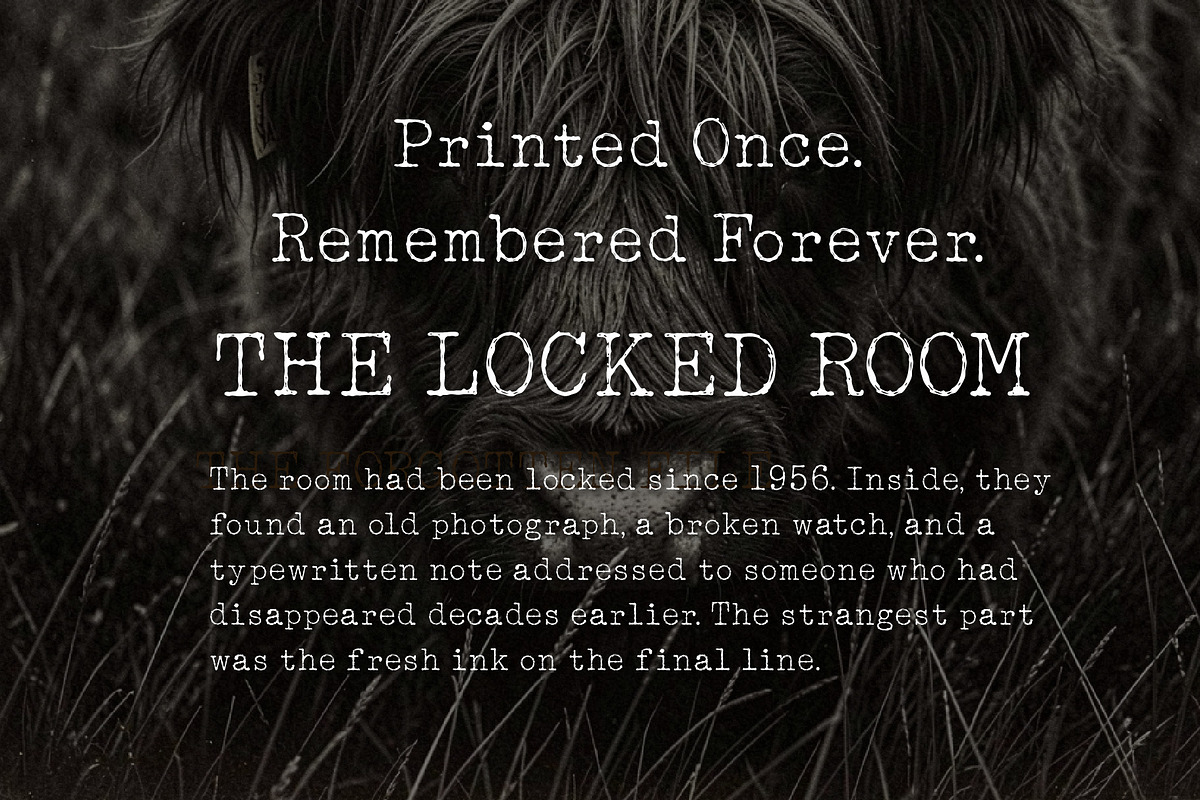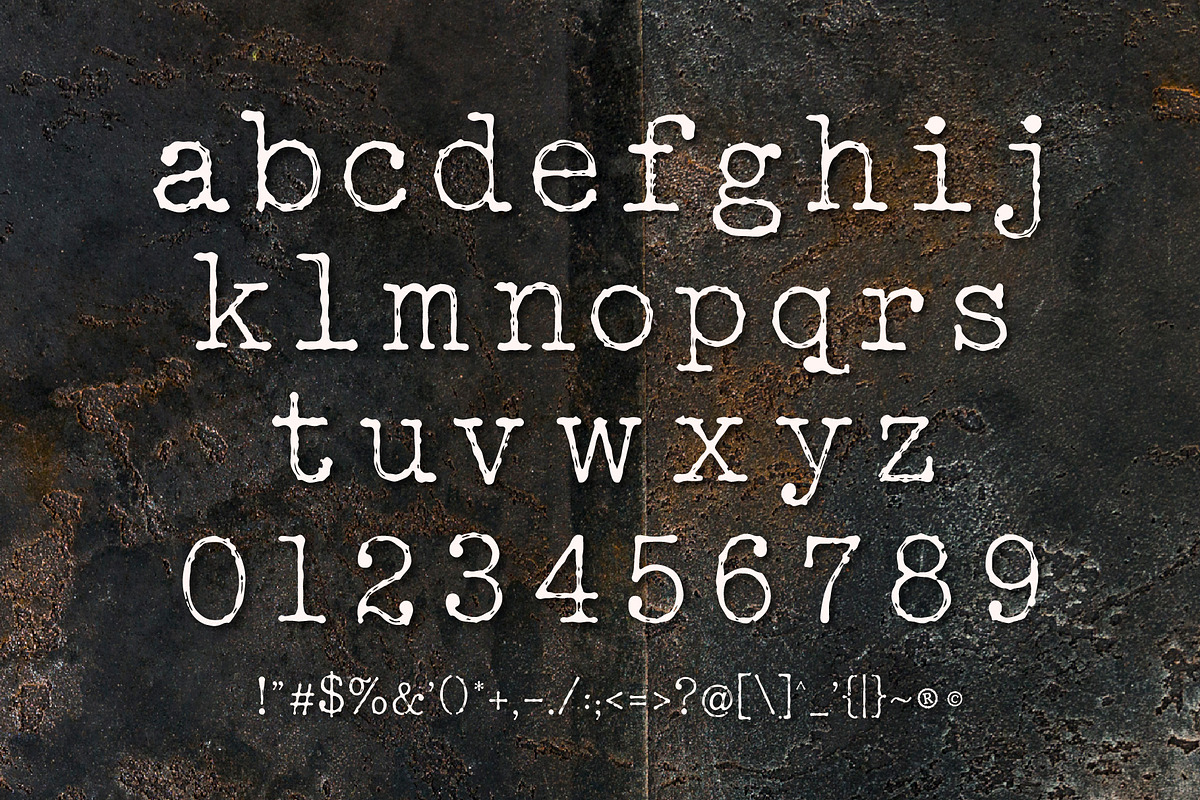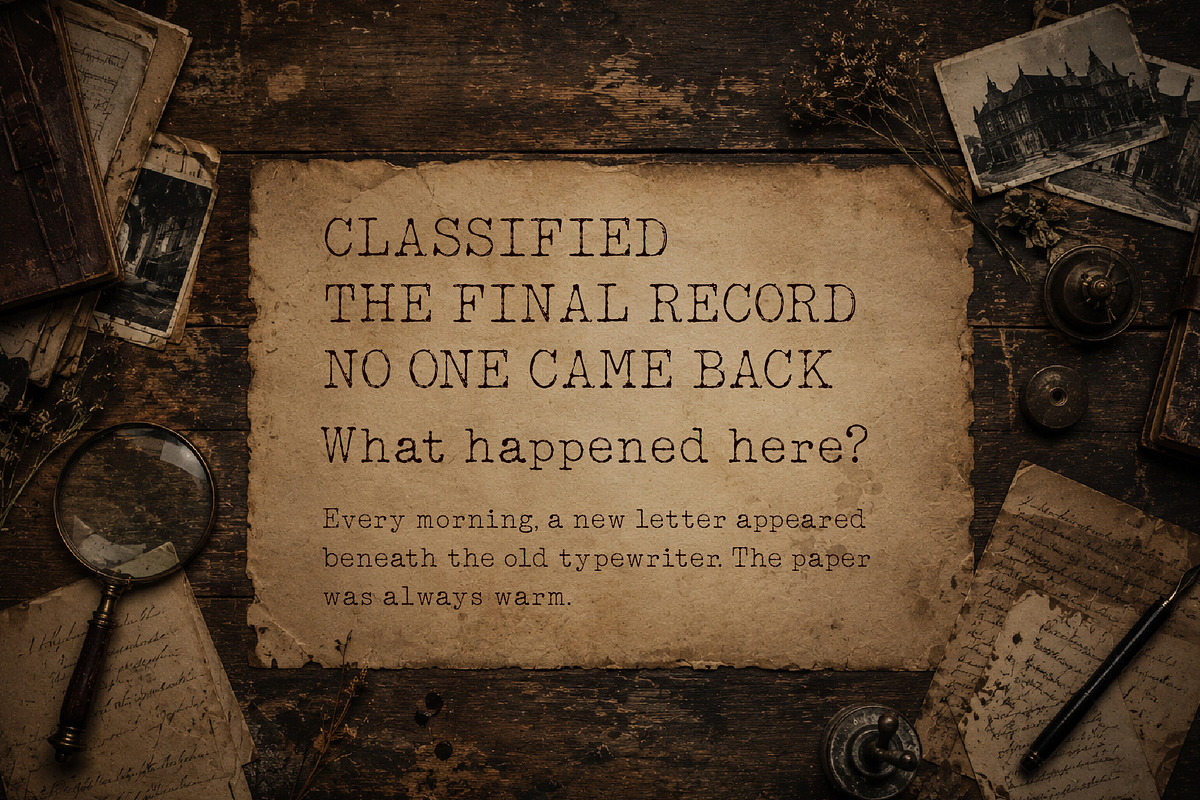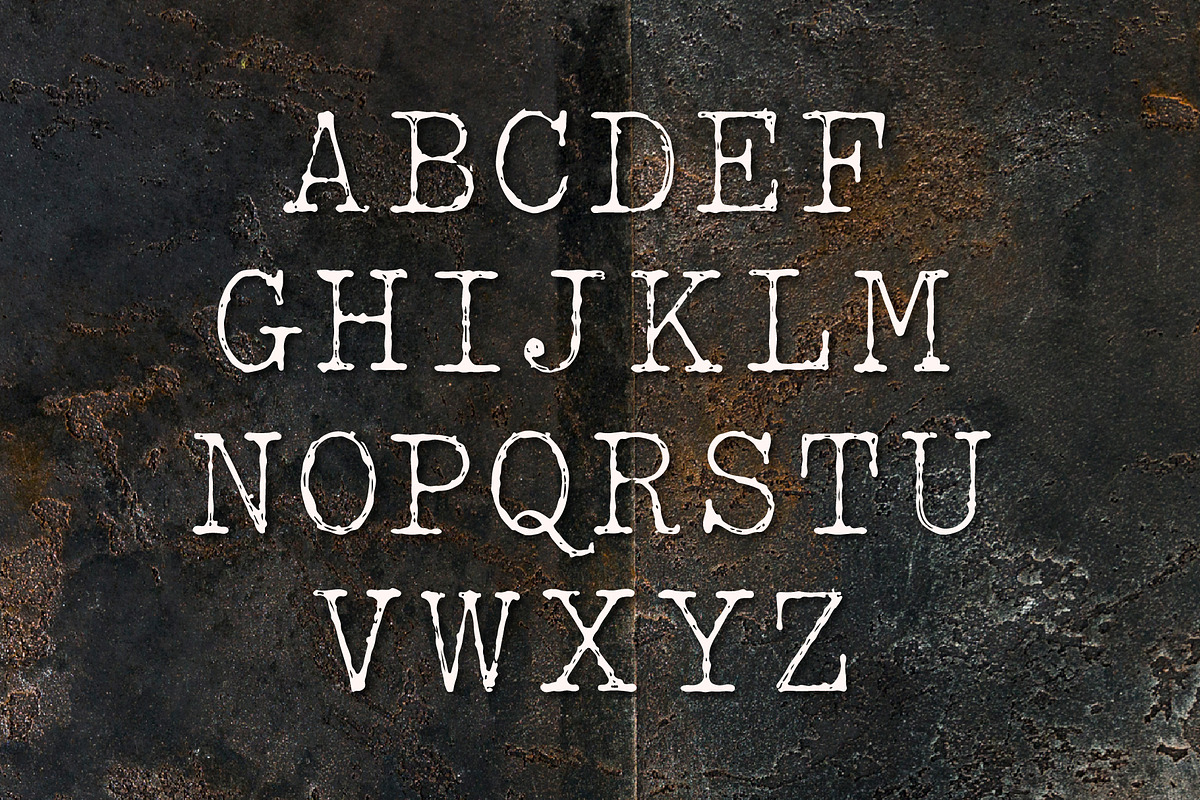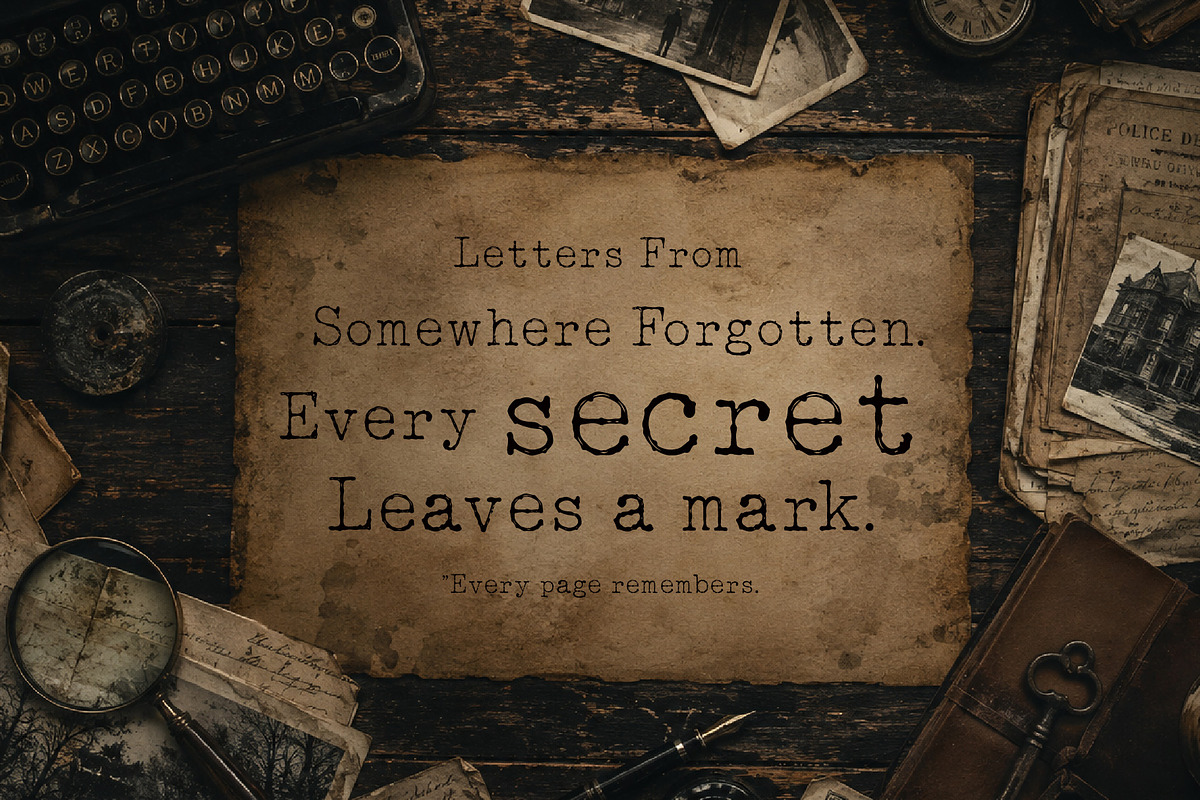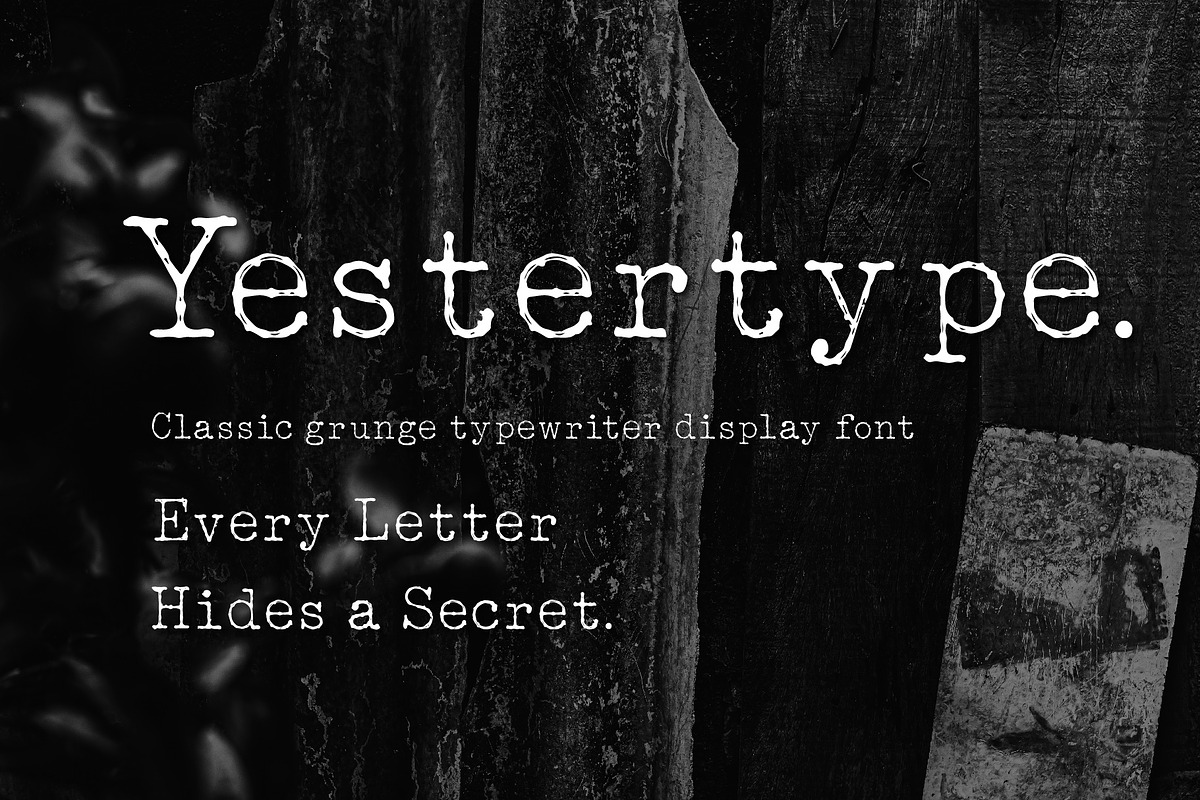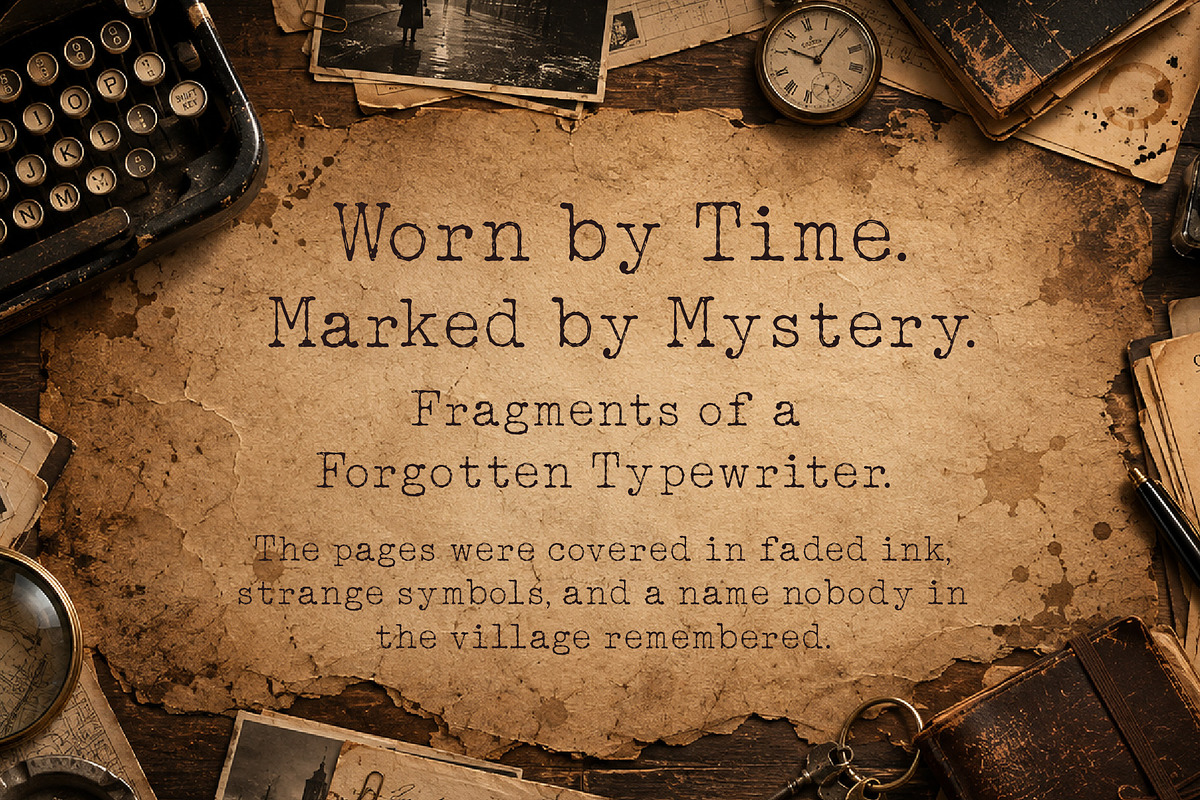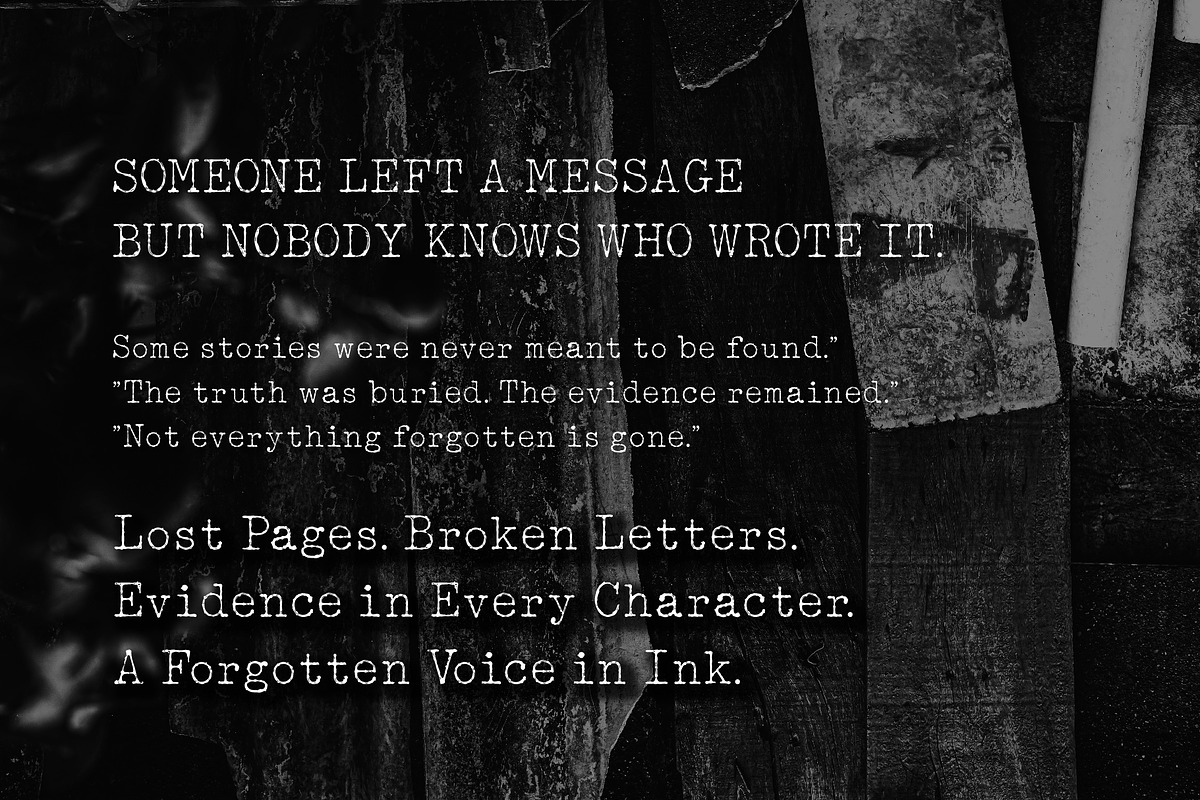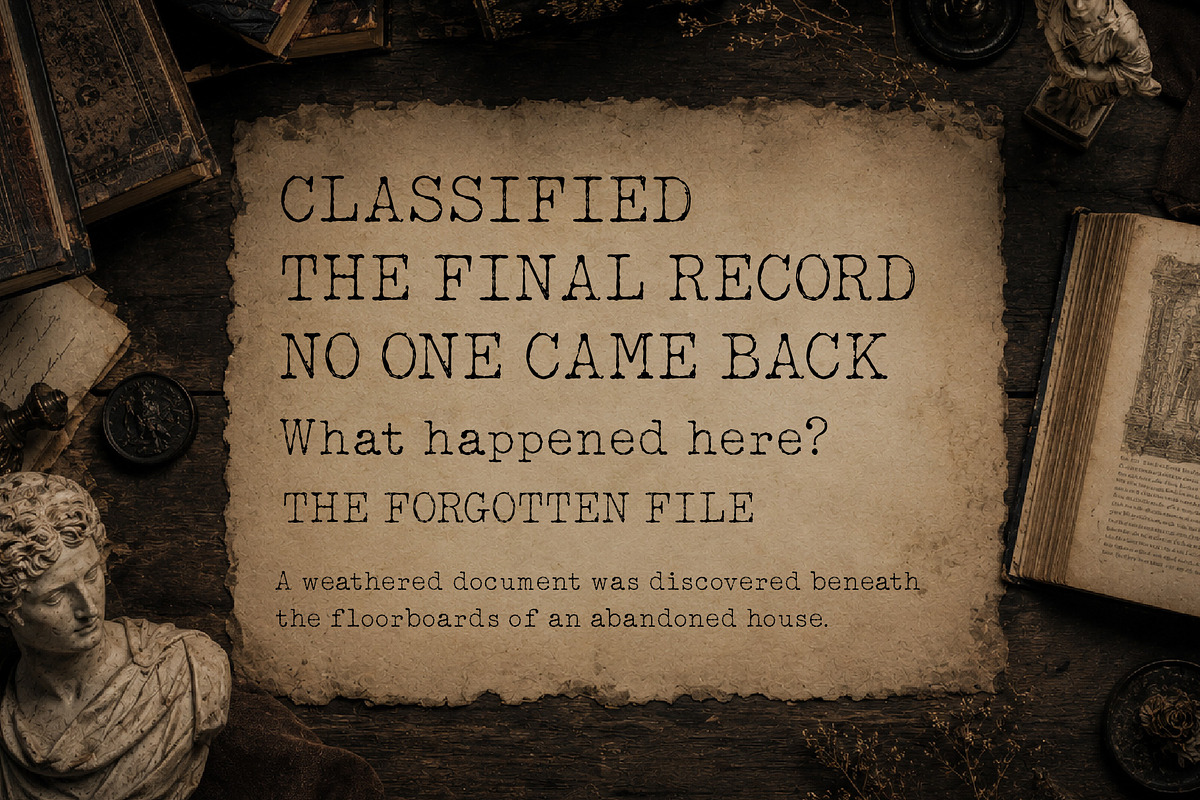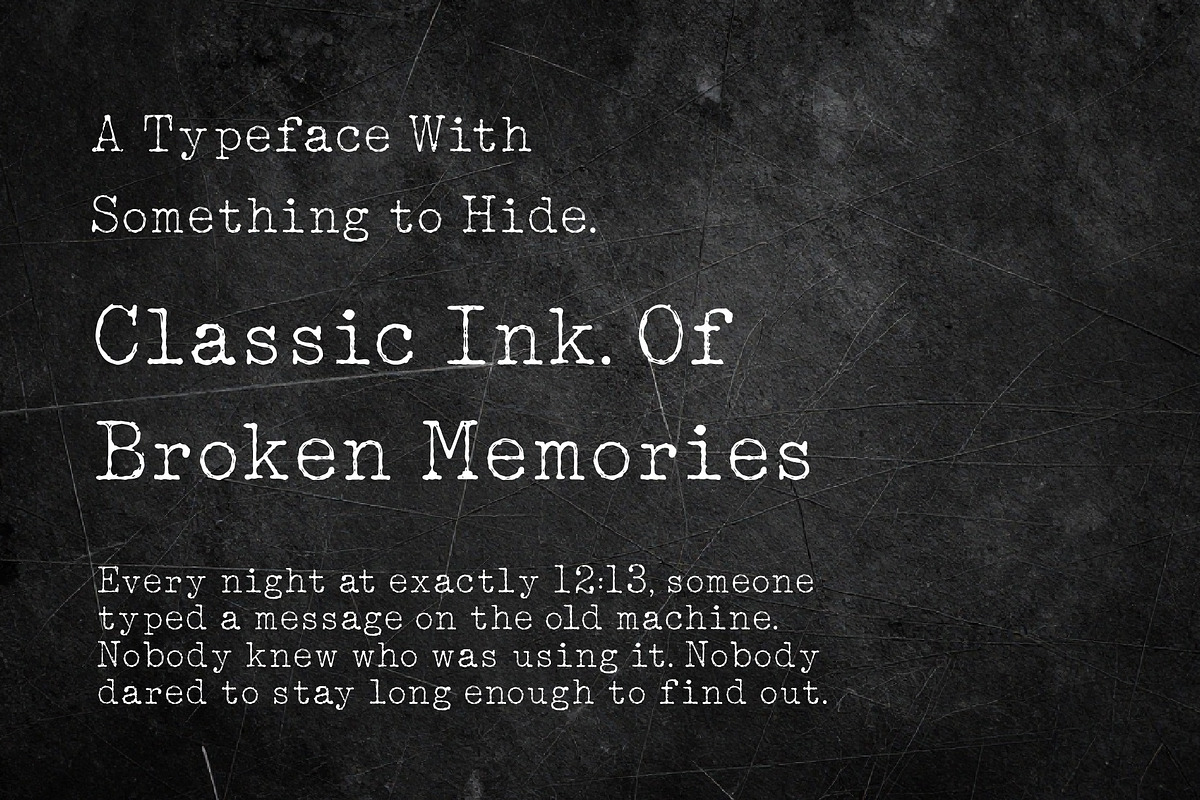
Yestertype Classic grunge typewriter
Yestertype is a classic old school grunge typewriter display font inspired by forgotten documents, mysterious manuscripts, vintage newspapers, horror posters, and abandoned archives. Its distressed ink texture, imperfect letterforms, and rustic character give every word an aged, unsettling atmosphere.
Yestertype brings the feeling of something old, forgotten, and slightly disturbing like a secret document discovered in a locked room.